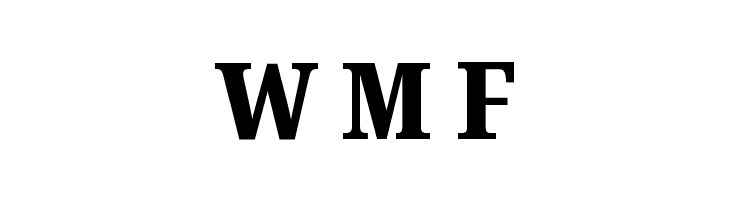
A modern, condensed sans-serif font with an extra light weight.
A refined, extra light serif font with a condensed structure and elegant style.
Ultra-light, extra-condensed sans-serif with a modern, minimal look.
A clean, geometric sans-serif font optimized for clarity and readability.
A classic serif typeface with medium weight and balanced proportions, offering elegance and readability.
A refined, extra condensed serif font with a light weight and high contrast.
A bold, condensed font with clean lines and tight spacing, offering modern clarity.
Modern sans-serif font with semi-condensed style.
A condensed, extra bold serif font with high contrast and a modern classic style.
A modern, extra-condensed sans-serif font with medium weight and clear legibility.
A semi-condensed, semi-bold serif font with a modern yet classic style.
A clean, modern sans-serif font with semi-condensed, light letterforms.
A bold, extra-condensed font with a modern, geometric style.
A clean, extra light font for Cherokee script with modern appeal.
A modern, condensed sans-serif font designed for UI clarity and readability.
Extra bold, semi-condensed sans-serif with clean, geometric shapes.
A clean, condensed font with an extra light weight, ideal for modern design needs.
Thin, condensed Hebrew serif font.
A bold, extra condensed font with a modern and clean design.
A modern, extra bold sans-serif font with a semi-condensed width.
A bold, semi-condensed font with a modern and robust style.